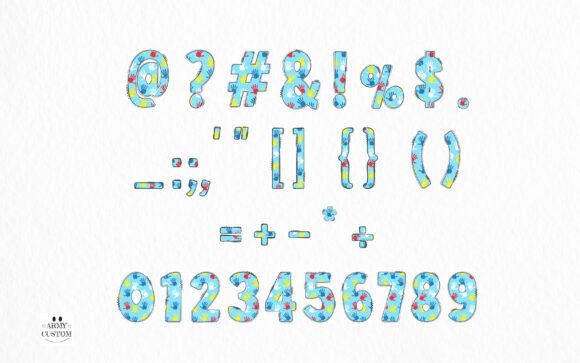
Autism Handprint Font
Autism Handprint is a vibrant and meaningful display font that features bold letters filled with colorful handprints, representing unity, awareness, and love. This font is perfect for Autism Awareness Month projects, educational materials, classroom decor, posters, t-shirts, and creative advocacy campaigns. Includes bonus SVG and PNG files for added design versatility.